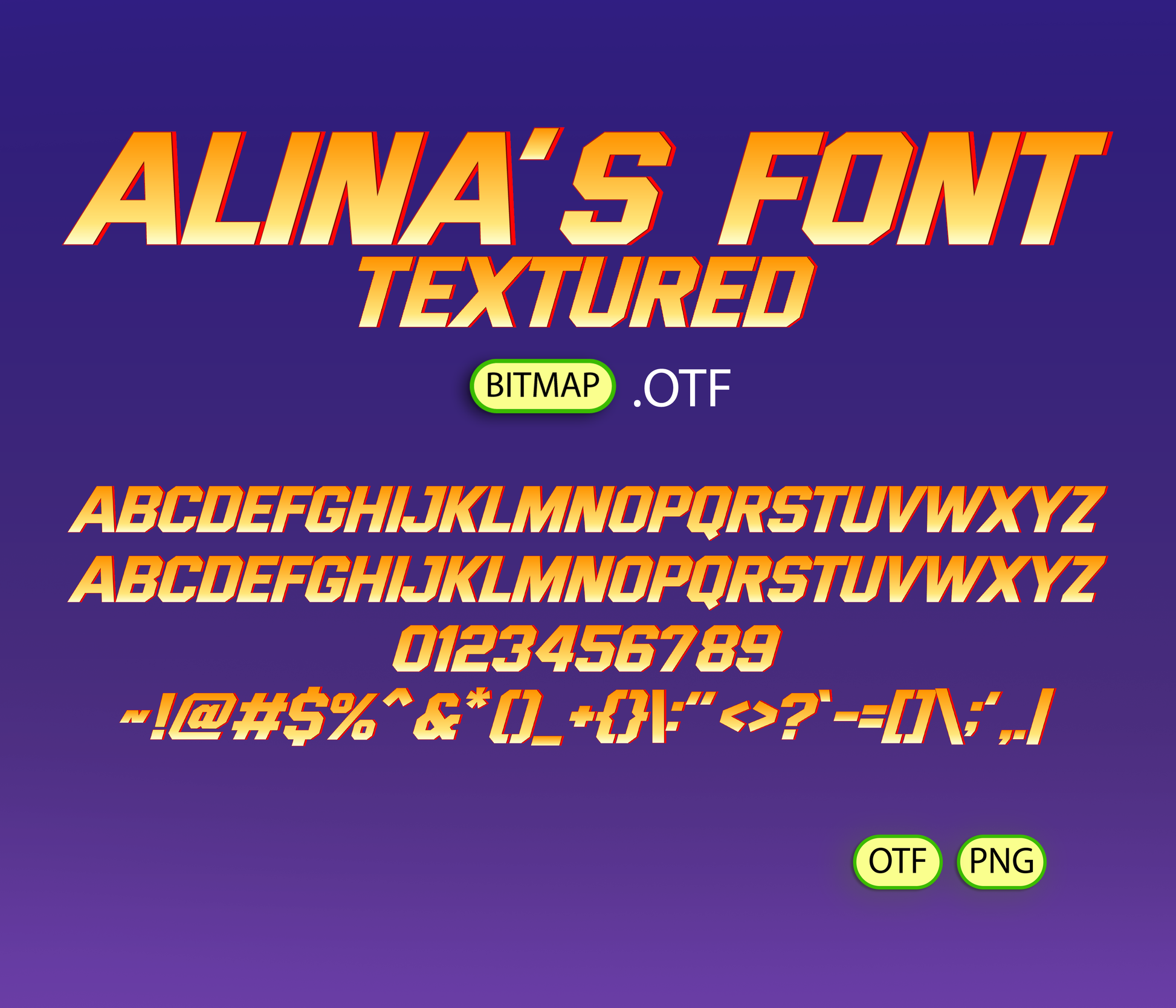
Epic Heroes Font Textured
Epic Heroes Font
Enter the climactic battle of the multiverse with our Epic Heroes font, inspired by Alliance of Heroes. Perfect for fans, event planners, and designers, this font captures the dramatic essence of this iconic DC storyline. Create event invitations, themed merchandise, or digital content with the grandeur and excitement of this legendary crossover.
Bold, angular lines and dynamic characters reflect the multiverse conflict. Ideal for: